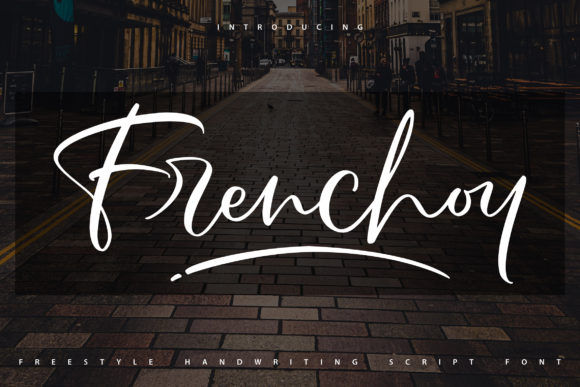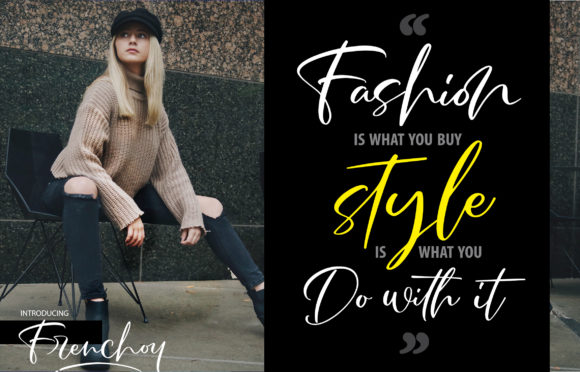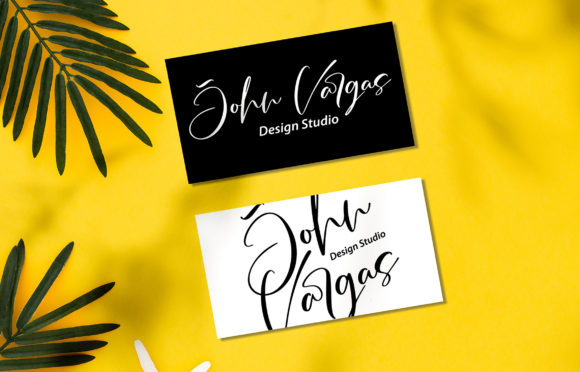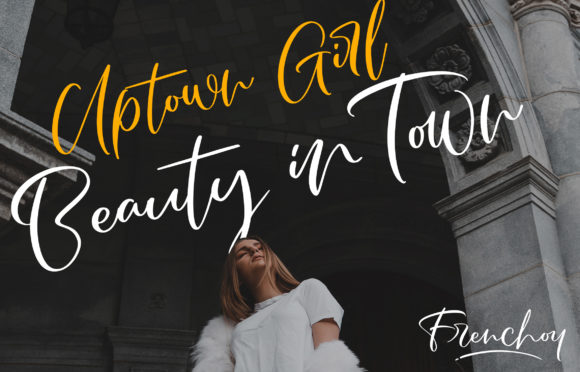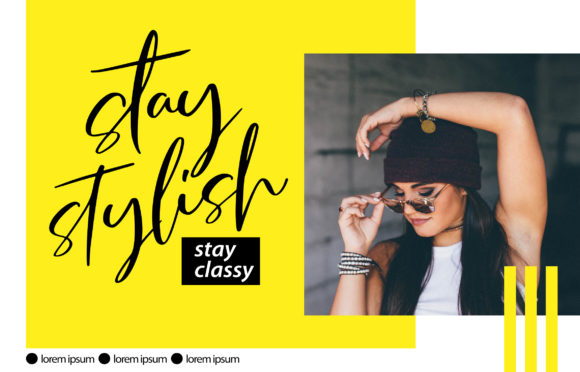
Frenchoy Font
About Frenchoy Font
Frenchoy is a sweet and flowing handwritten font. It is PUA encoded which means you can access all of the glyphs and swashes with ease! It features a varying baseline, smooth lines, gorgeous glyphs and stunning alternates.